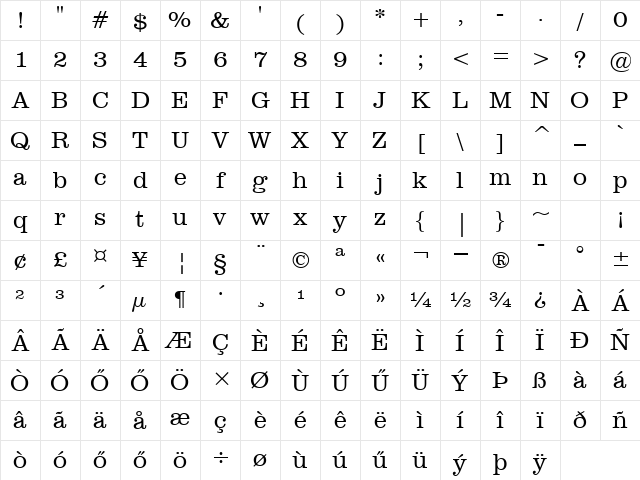
H_Clarendon Light BT Regular
Design Context for H_Clarendon Light BT
H_Clarendon Light BT features prominent, blocky serifs that give it a confident, grounded presence - equally at home in editorial settings and bold branding work. Its slender proportions lend an understated elegance to any composition.
Pro Tip: Use H_Clarendon Light BT for headlines and subheadings where its slab serifs can make an impression. It also holds up well in mid-size body copy thanks to its sturdy construction.